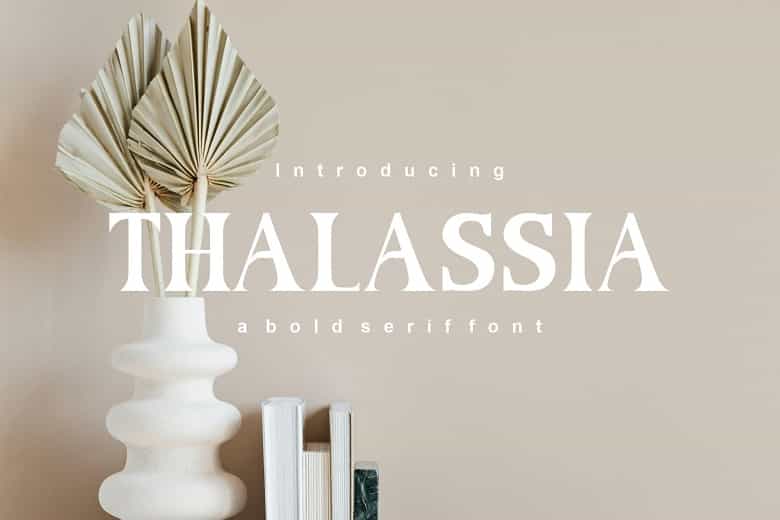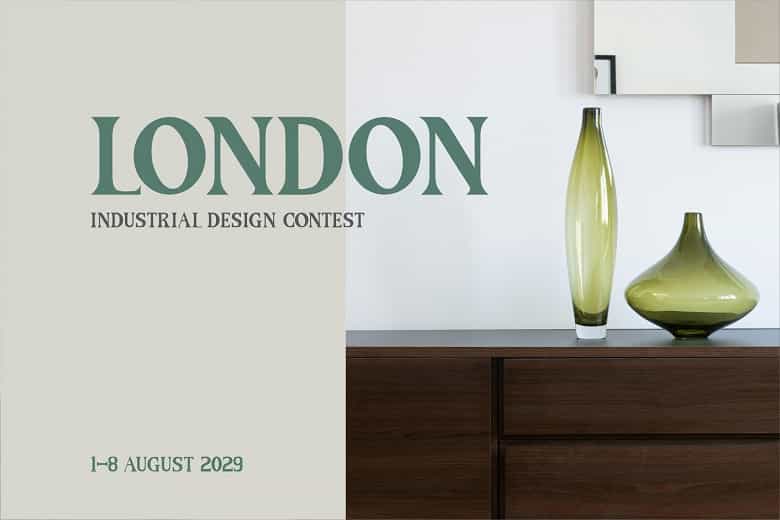
Thalassia is a bold font that has a clean and stylish serif that has an almost modern look to it. It is suitable for use in graphic design for interiors and advertisement as well as for promotional materials for your website. It is also suitable for beauty magazine covers and ads for beauty products and other similar merchandise.